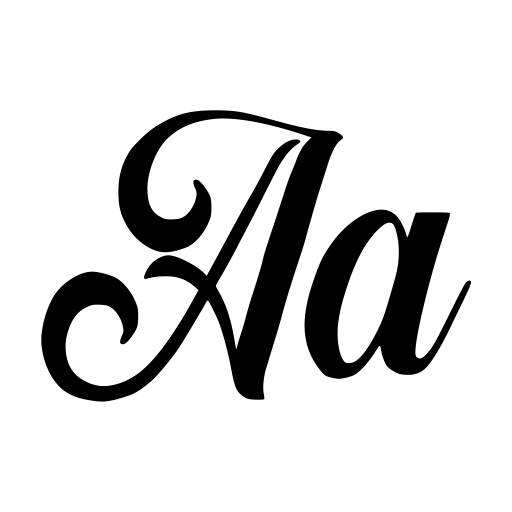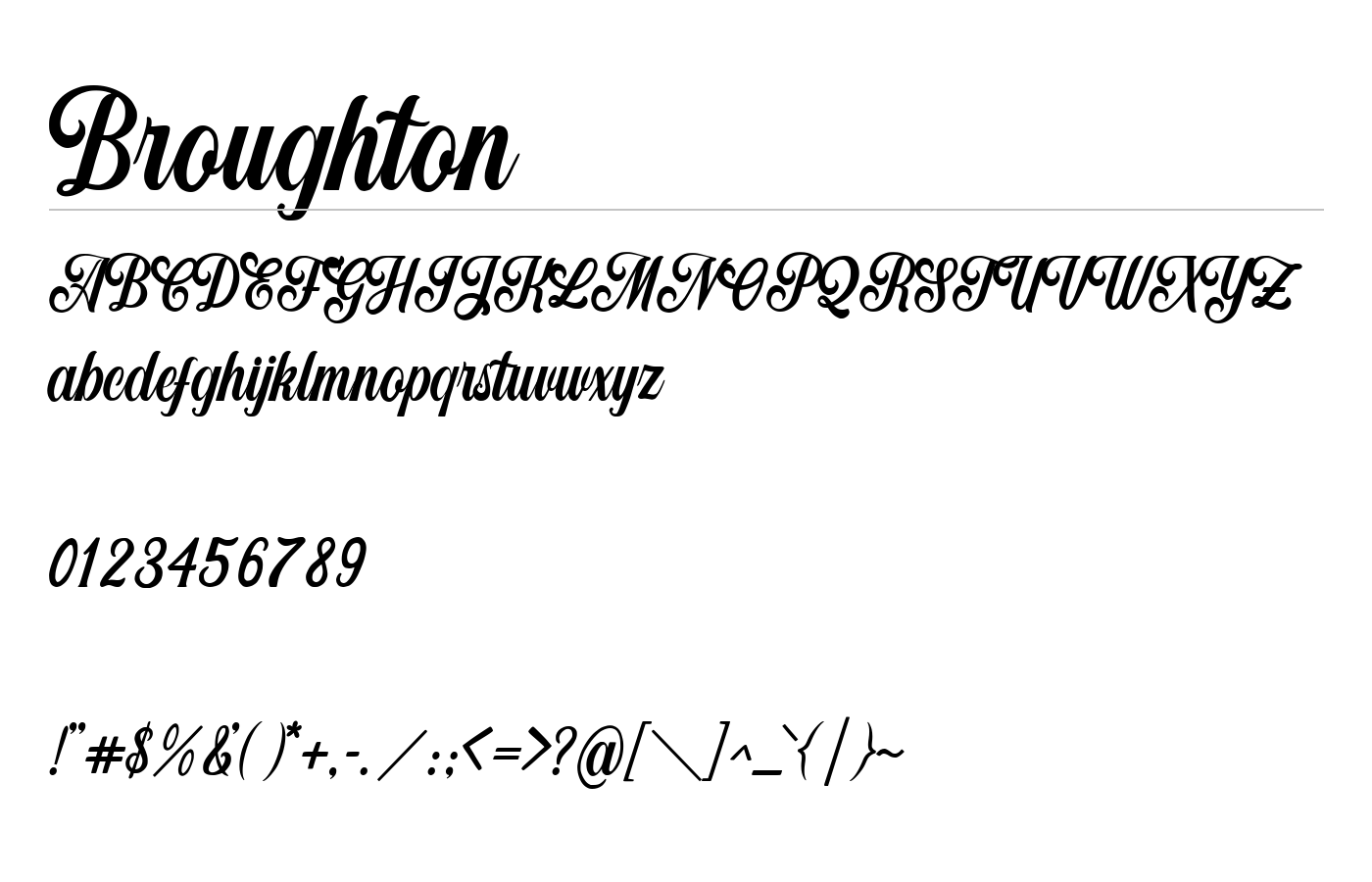
Broughton is a stylish script font featuring fluid, elegant letterforms with a moderate contrast between thick and thin strokes, giving it a refined yet approachable feel. Its flowing italics and classic single-story shapes create a sophisticated personality that works beautifully for luxury branding, wedding invitations, and editorial headlines. This font shines in settings that demand a touch of elegance and charm while maintaining readability and grace.
| Font family | Broughton Font |
| Designer | Ardian Nuvianto |
| Trademark | Damarletter. 2020 |